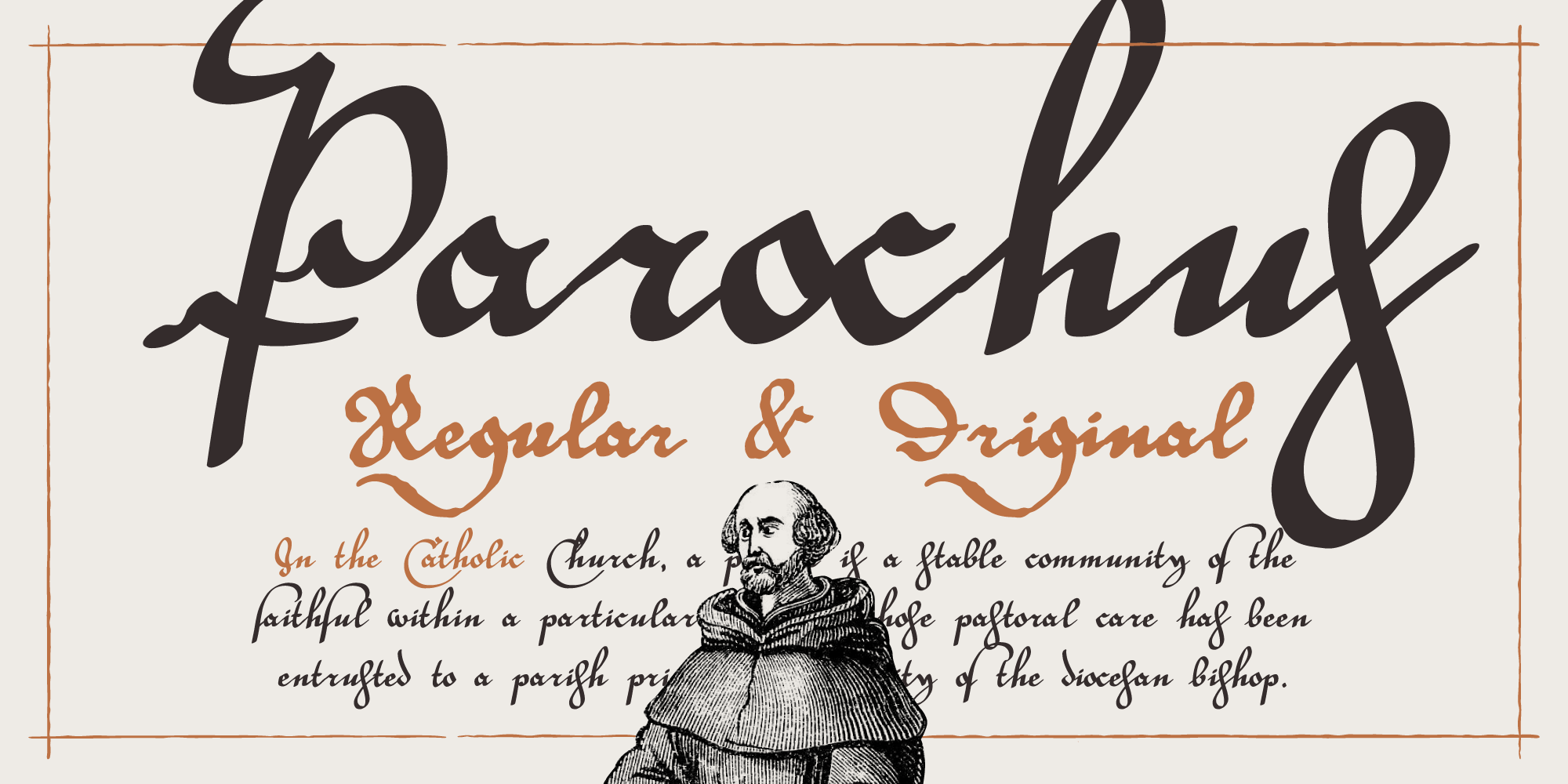
This sacred typeface is perfect for religious institutions, church publications, parish bulletins, spiritual retreat centers, religious education materials, cathedral signage, monastery branding, theological seminaries, faith-based organizations, religious book publishing, sacred music programs, and devotional content platforms. The font's reverent design makes it ideal for projects that celebrate spiritual devotion, religious community, and the sacred traditions that connect congregations with divine worship and pastoral care.
Parochus Font is exciting because it embodies spiritual authority and pastoral wisdom through its dignified letterforms and ecclesiastical character structure. The font's reverent proportions and sacred elegance create an atmosphere of devotion, community fellowship, and divine connection, making it perfect for brands that want to convey faith, spiritual guidance, and the comforting presence of religious leadership. Its sacred personality ensures instant reverence while maintaining excellent readability across various religious applications.
The Parochus Font family includes multiple devotional variations: Light Prayer, Regular Worship, Medium Blessing, Bold Scripture, and Black Cathedral weights, each available in standard and ornamental versions. Special ecclesiastical editions feature religious alternates, sacred symbols, and liturgical ornaments that enhance the font's spiritual appeal, providing designers with comprehensive tools for creating authentic faith-based communications.
Inspire spiritual connection with Parochus Font Free Download – a typeface that represents pastoral care and divine devotion. Whether you're developing religious branding, church publications, or faith-based marketing materials, this font delivers the sacred presence and spiritual authority your projects need while ensuring exceptional performance and reverent impact across all religious and spiritual applications.